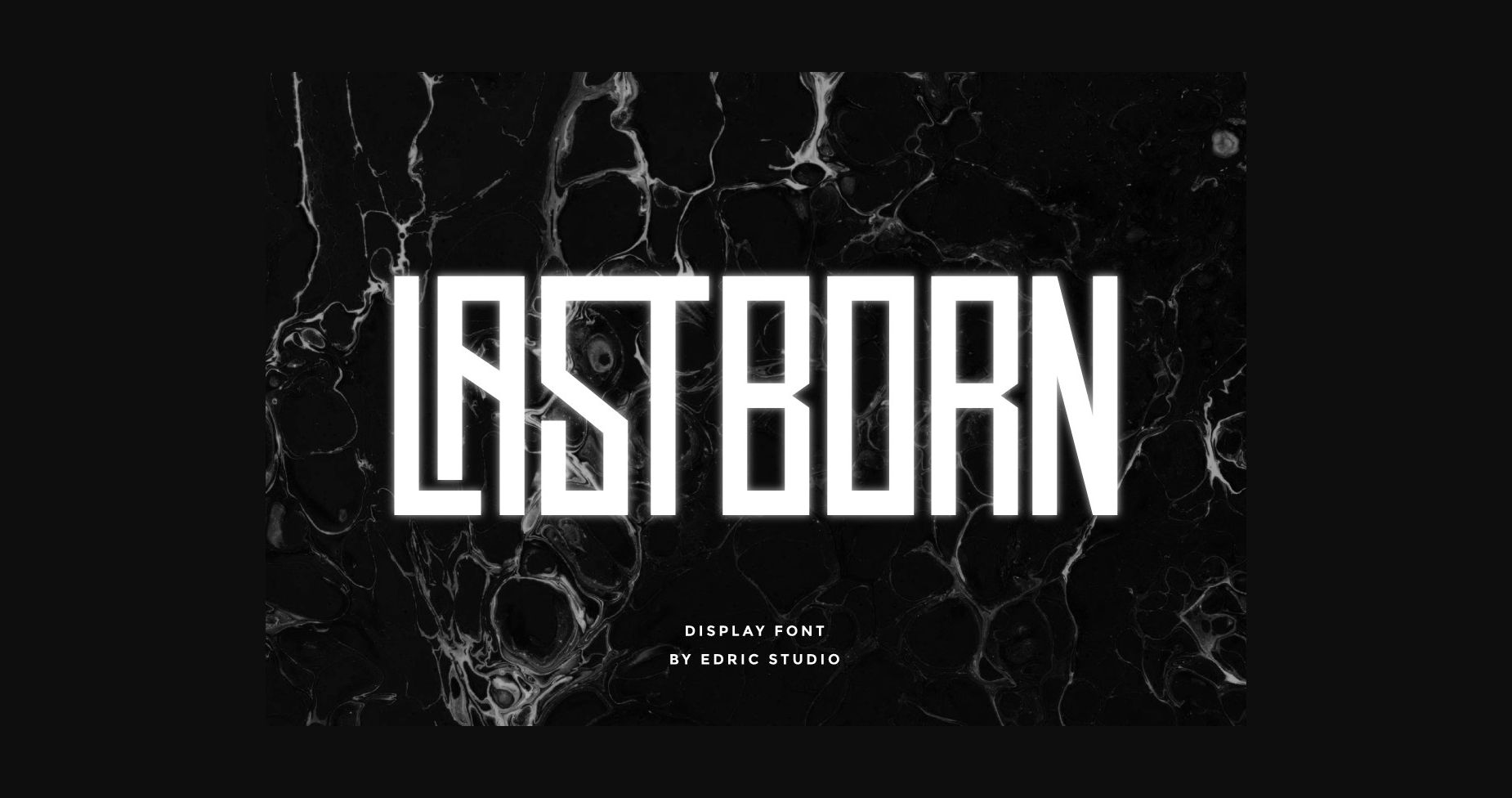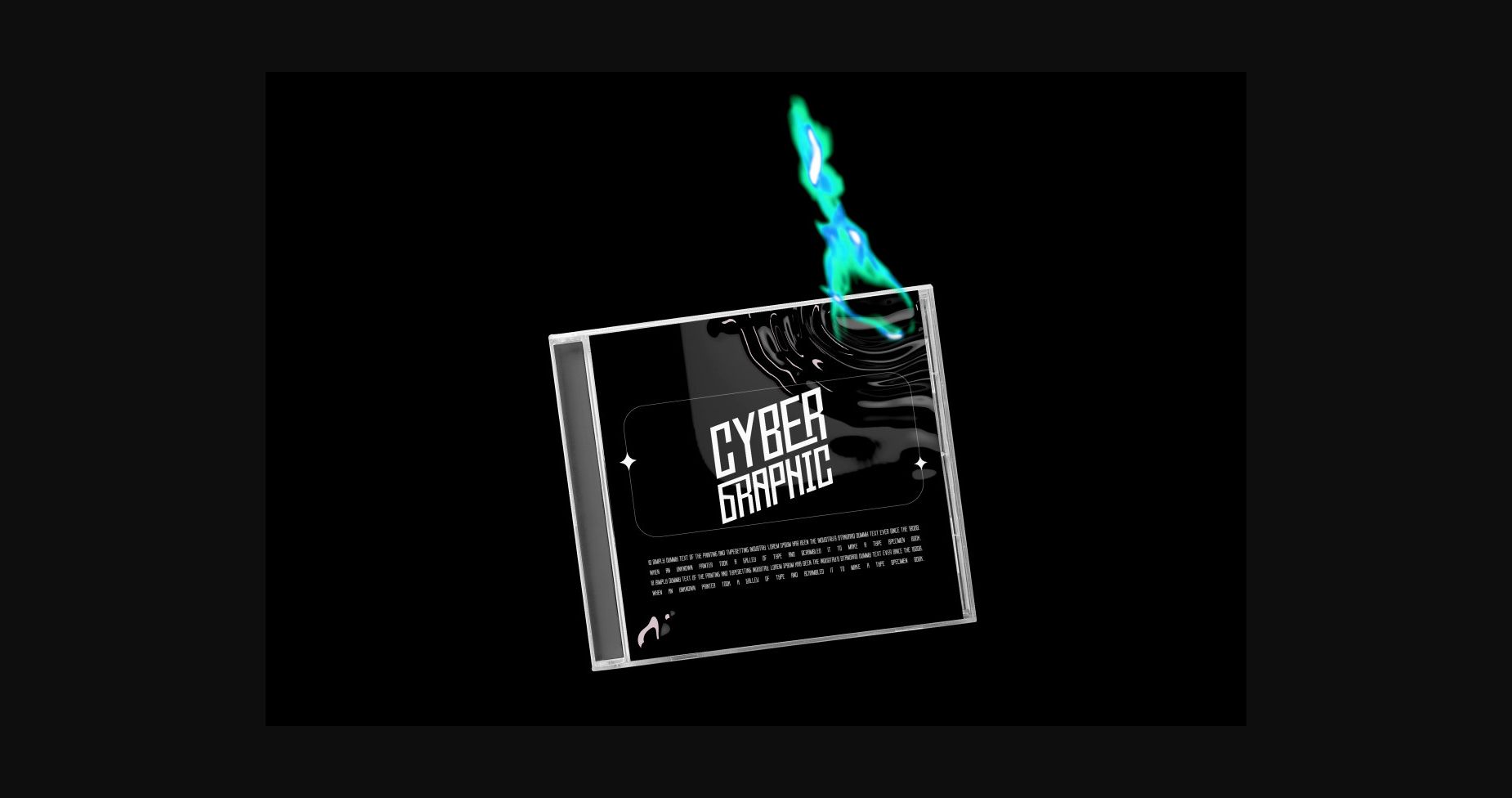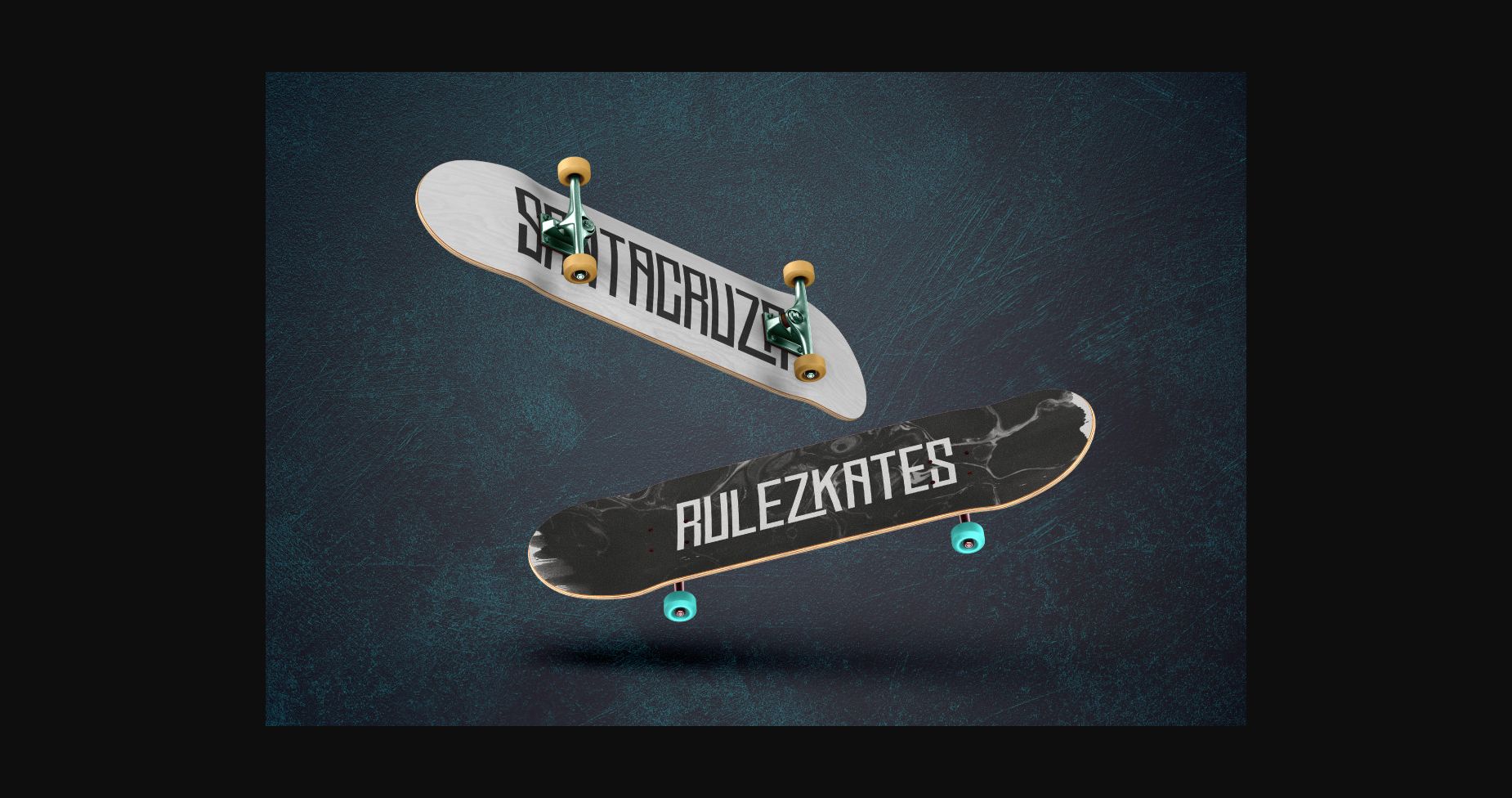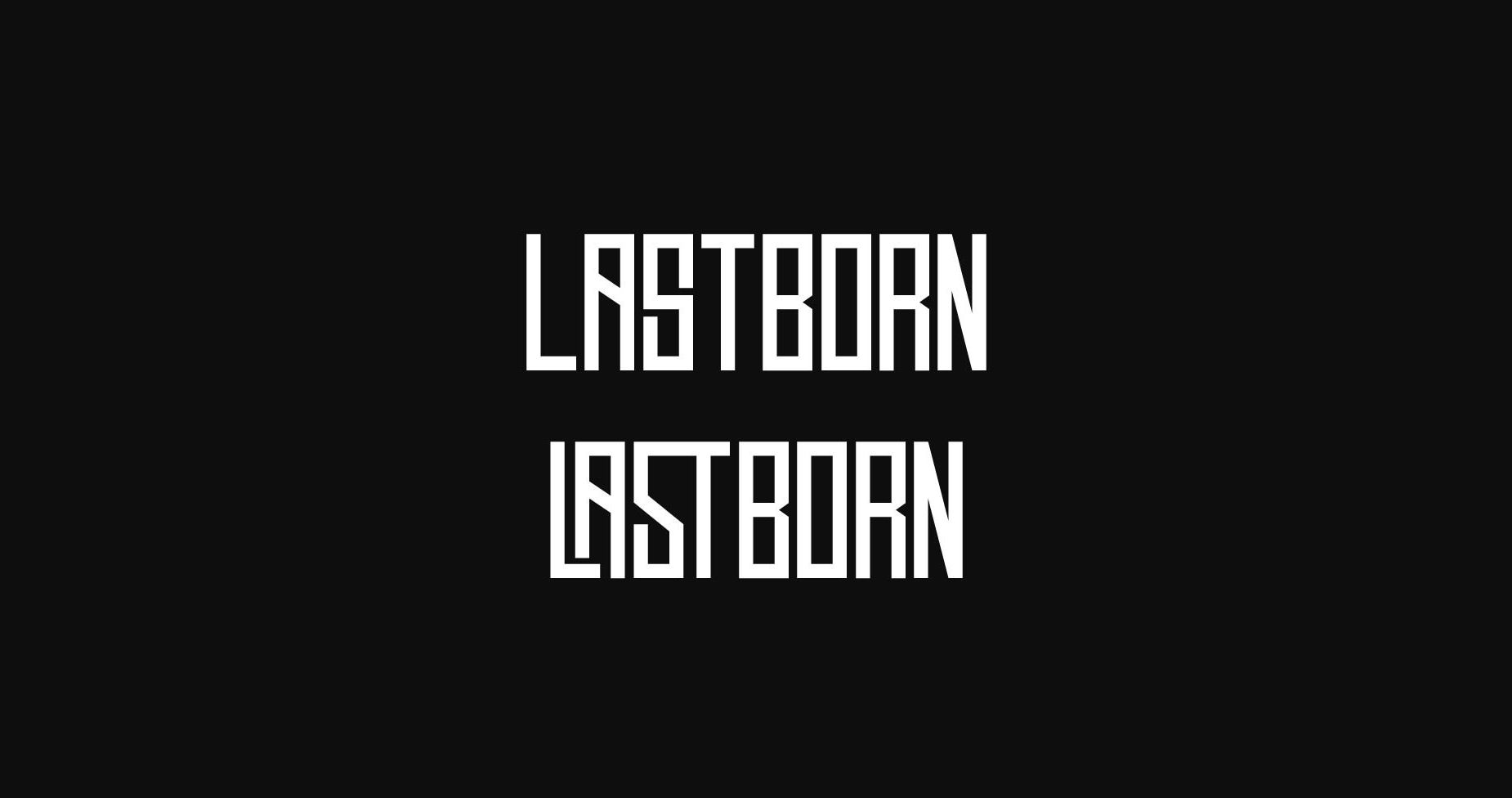
About Lastborn Font
Lastborn is a strong unique sans serif font with a modern style. It has strong, modern, and mysterious characters perfect for branding, logo, photography, headlines, and other crafty ideas. This font is PUA encoded which means you can access all of the glyphs and swashes with ease!